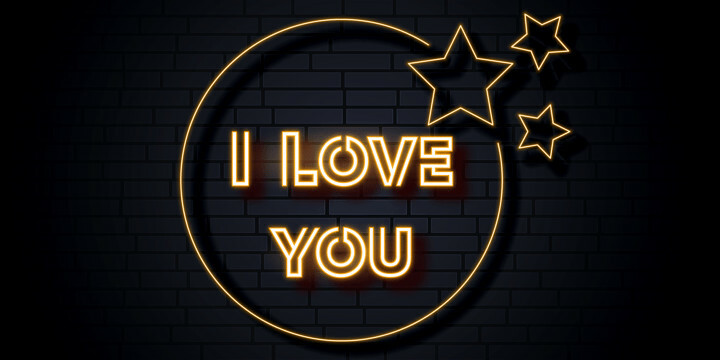
Neon LED V2 Font Family
Neon LED V2 Font FamilyNeon LED V2 is a New Version of Neon LED Light font, It is a bold, chunky lettered and retro display font. Perfect for quotes, retro style design, logo, logotype, badges, packaging, branding, sign, craft needs, mockup, merchandise, and many more. Add this neon font to your creative ideas and notice how it makes them stand out!